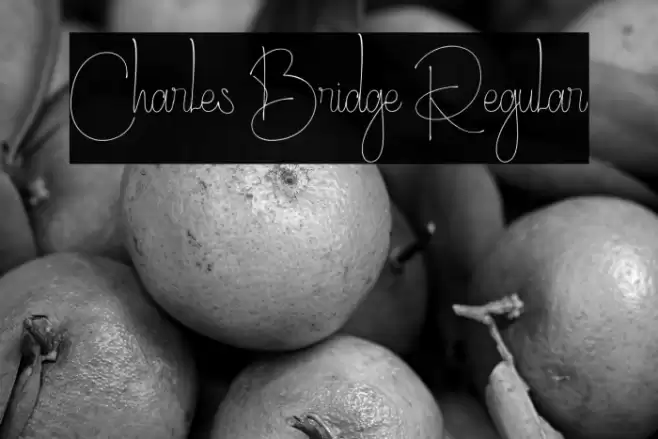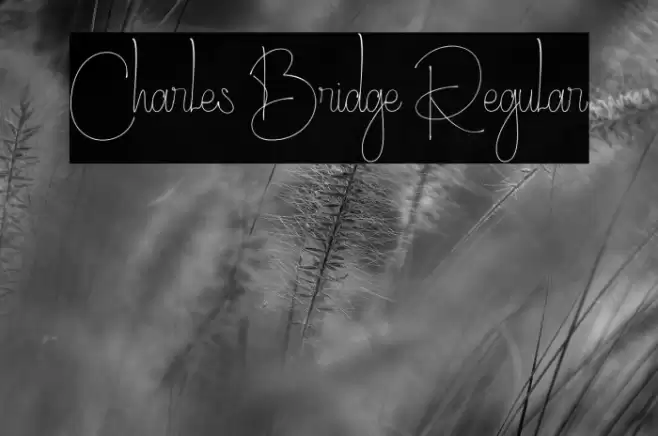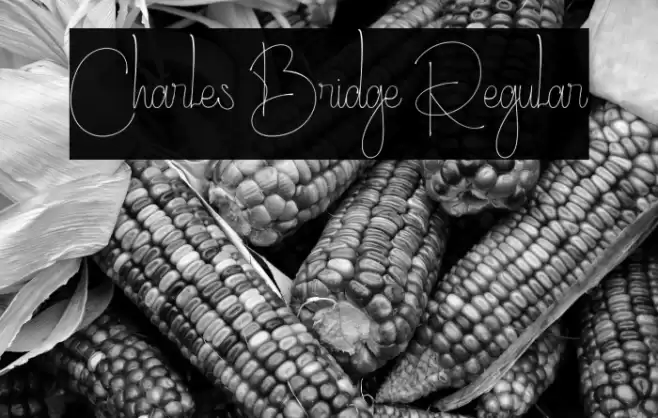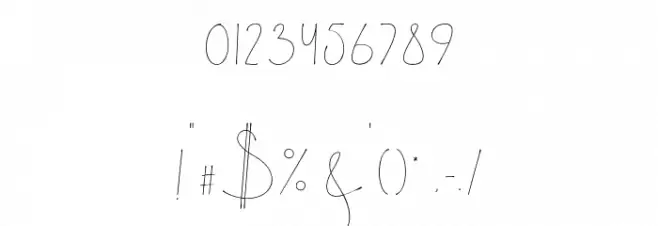
Charles Bridge Regular Font
Charles Bridge Regular Description
This font features a delicate and elegant script style with thin, flowing lines that create a sense of sophistication and grace. The characters are interconnected with smooth curves, giving it a handwritten appearance. The uppercase letters are tall and slightly elongated, while the lowercase letters maintain a consistent flow, enhancing readability. The numerals and special characters are designed to match the overall aesthetic, ensuring a cohesive look across all text. This font's airy and light structure makes it ideal for projects that require a touch of elegance and refinement.
A delicate, elegant script font with flowing, interconnected characters from Regular fonts.
- Weight: Light
- Overall Style: Elegant, Handwritten